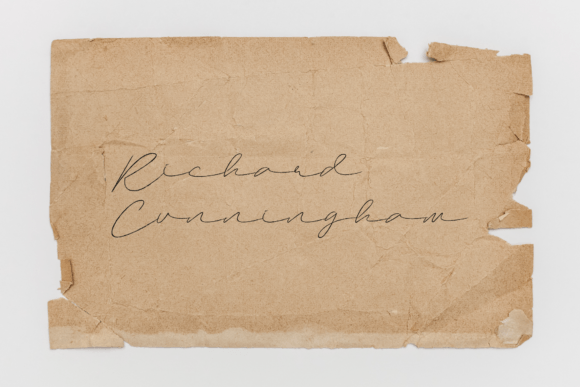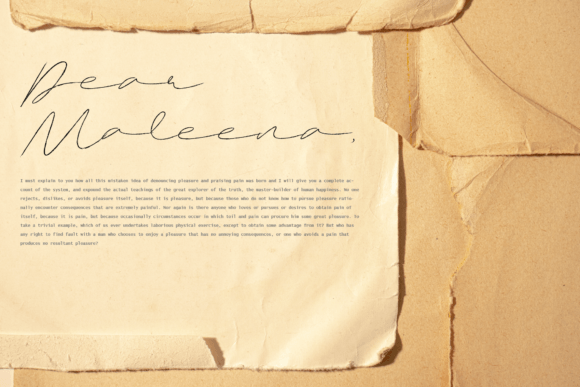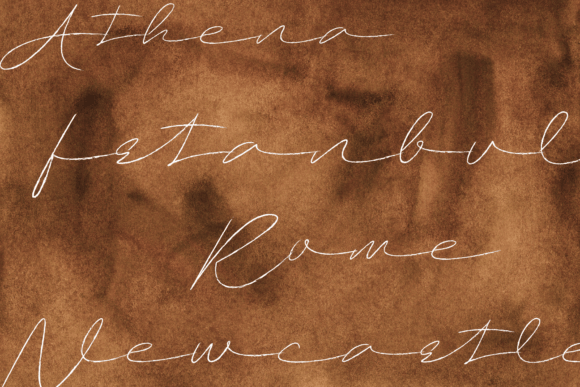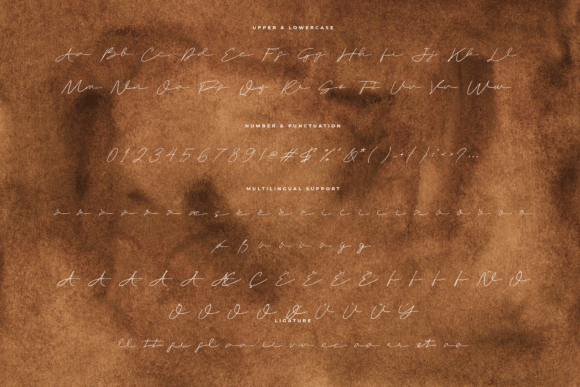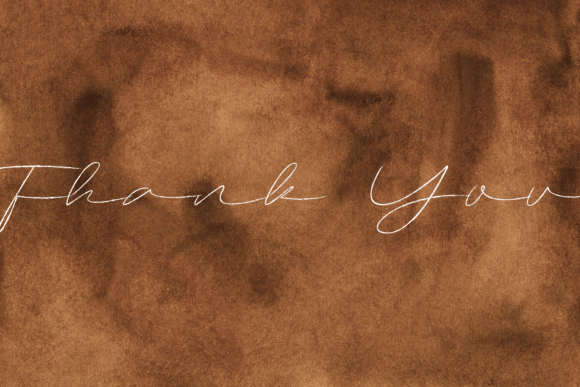
Jenfar Font
Jenfar Font Download – Delicate Elegant Flowing Script
The Jenfar Font download is a refined handwritten script that blends elegance with modern charm. With its graceful strokes and balanced structure, this typeface adds sophistication to both personal and professional projects. Because of its timeless design, it adapts seamlessly to invitations, branding, and digital artwork.
Delicate and Flowing Handwritten Style
Jenfar features soft curves and balanced proportions that create a polished and graceful appearance. As a result, it enhances your text with a delicate handwritten feel. In addition, its flowing rhythm ensures designs look natural and stylish.
From wedding invitations to personal greeting notes, this font adds personality and elegance. It makes words look meaningful and stylish. Therefore, it is a top choice for stationery and event projects.
Jenfar Font Download for Logos and Posters
The Jenfar Font download also works beautifully in logos, posters, and branding. Its refined handwritten strokes provide professionalism while keeping a creative and modern edge.
Versatility Across Creative Projects
From stationery and packaging to social media graphics and DIY designs, Jenfar adapts across platforms. In addition, its clear design ensures that it performs equally well in both print and digital formats.
Readability and Balanced Elegance
Unlike fonts that are too decorative, Jenfar strikes the right balance between legibility and style. As a result, it can be used effectively in large titles, product labels, and supporting text elements.
The Jenfar Font download is versatile, elegant, and simple to use. In other words, it suits invitations, logos, posters, branding, and greeting cards alike. Finally, it is a handwritten script that adds delicacy, beauty, and timeless charm to every design.